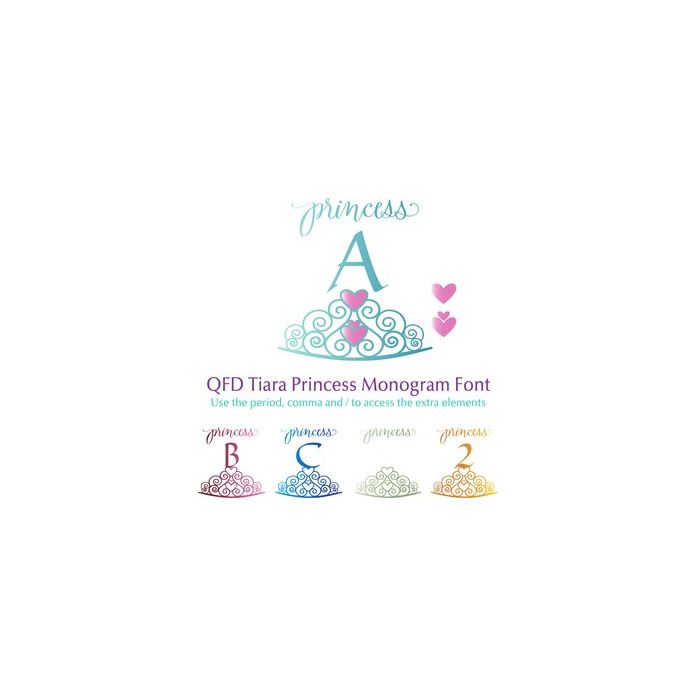
Perfect for birthday parties and gift tags, cards, pillows, invitations, wall art, t-shirts, mugs and anything else you can think of. Use the period , comma and / to access the blank monogram and the heart images which are usable for underlays.